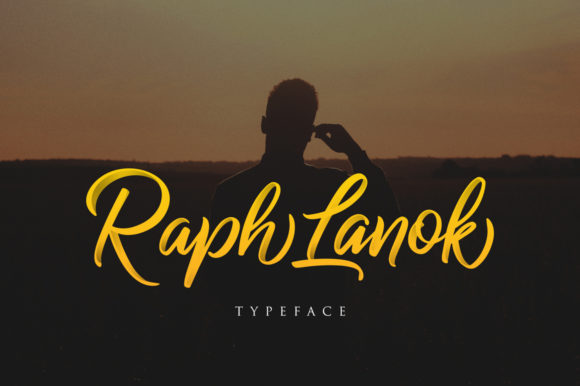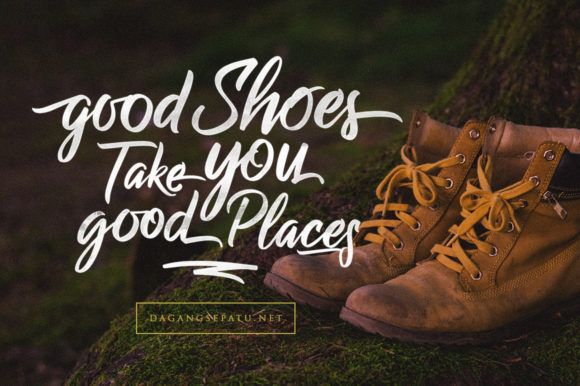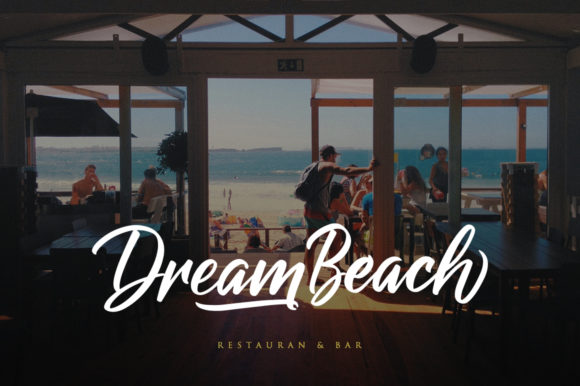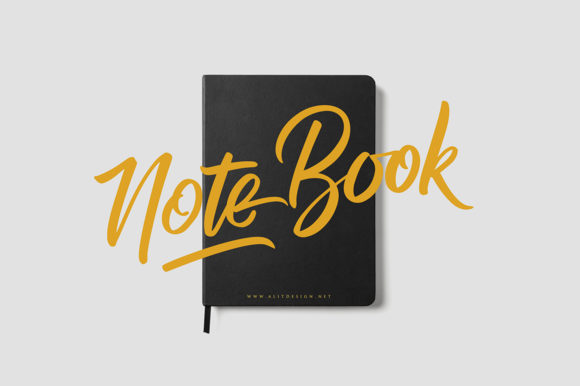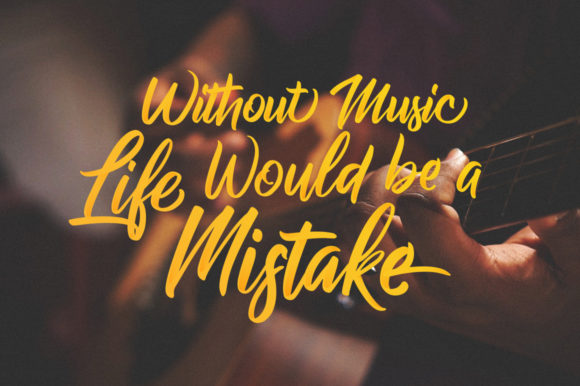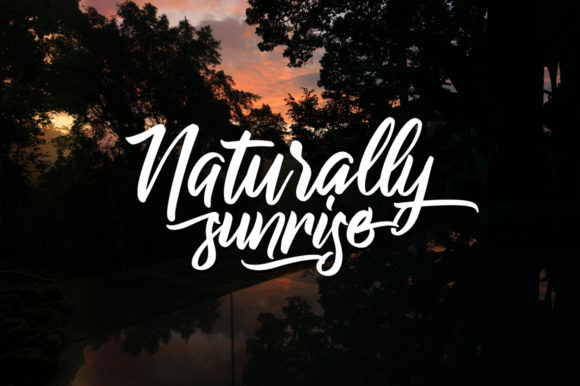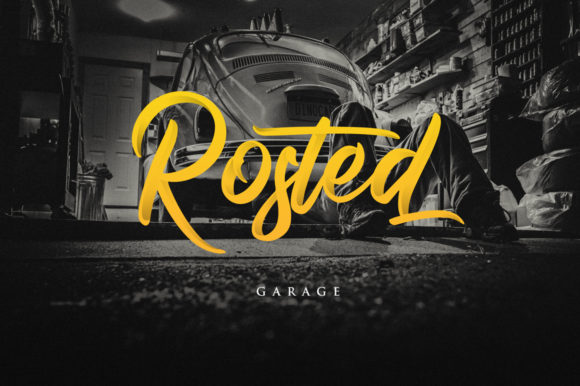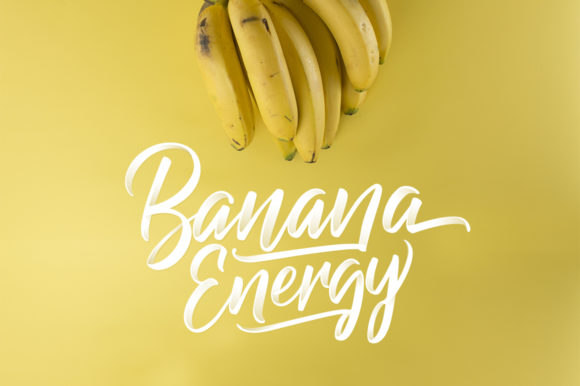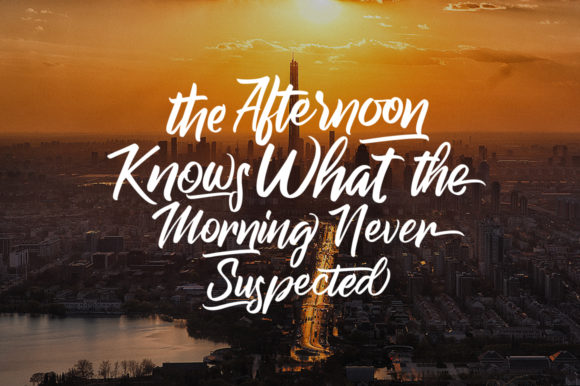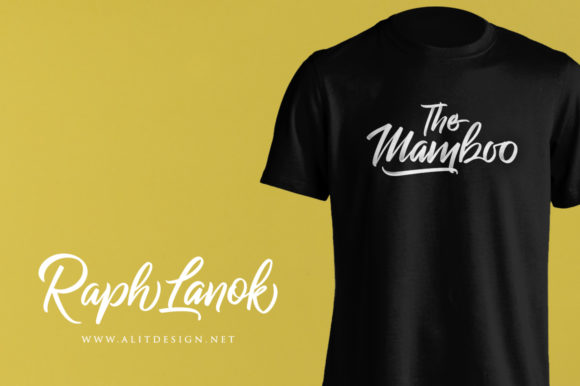
HomeScript FontsRaph Lanok Font Script Fonts Raph Lanok Font FacebookXPinterestWhatsApp Raph Lanok Font Poster 2 Raph Lanok Font Poster 3 Raph Lanok Font Poster 4 Raph Lanok Font Poster 5 Raph Lanok Font Poster 6 Raph Lanok Font Poster 7 Raph Lanok Font Poster 8 Raph Lanok Font Poster 9 Raph Lanok Font Poster 10 Raph Lanok Font Poster 11 About Raph Lanok Font Raph Lanok has an incredibly elegant and smooth style, perfect for adding a personal touch to any design project! DOWNLOAD ON CREATIVE FABRICAThis font is sold and delivered by Creative Fabrica. Font Canyon may earn a commission if you buy through this link. People also explored Stepbrother Font Inside Font Apirak Font Sundarta Font Vierra Font Cheerful Elf Font Hellow Milea Font Quantum Font Smile Font 297 0 TagsRaph Lanok Font Previous articleBeneth FontNext articleYouth Power Font LEAVE A REPLY Cancel reply Comment: Please enter your comment! Name:* Please enter your name here Email:* You have entered an incorrect email address! Please enter your email address here Website: Save my name, email, and website in this browser for the next time I comment. Personal Use Free Aldenburg Personal Use Free Read more about this font Rozalyn Personal Use Free Read more about this font Wadjet Personal Use Free Read more about this font BD Console Personal Use Free Read more about this font BLOG Transform Your Website: Elevate Your Typography with 7 Best Web Font Generators Are you ready to transform your website's typography from ordinary to extraordinary? Great! Today, we're diving into the world of web font generators, which... Elegant Wedding Invitation Fonts – Handwritten & Script Fonts Best Fonts for YouTube Videos: Make Your Thumbnails Stand Out Free vs Paid Fonts: Why Investing in Premium Fonts Is Worth It